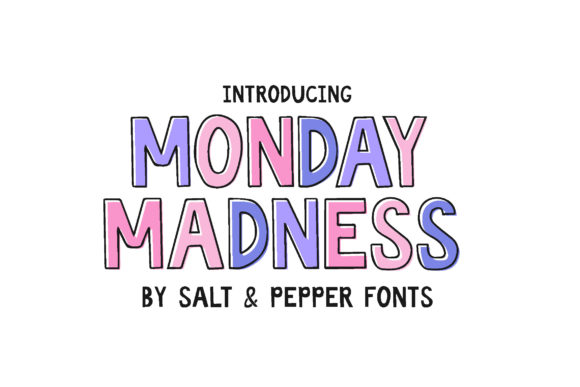
Monday Madness Font: The Perfect Choice for Kids’ Activities and School Projects
Are you looking for a font that embodies playfulness and authenticity for your kids’ activities or school projects? Look no further than the Monday Madness Font! This cute and colorful display font is sure to add a touch of fun and excitement to any project.
What is Monday Madness Font?
Monday Madness Font is a unique and creative font that is designed to bring a smile to your face. With its bold and colorful letters, this font is perfect for kids’ activities, school projects, and even personal use. Whether you’re creating a poster, flyer, or presentation, Monday Madness Font is sure to make your project stand out.
Characteristics of Monday Madness Font
So, what makes Monday Madness Font so special? Here are a few of its key characteristics:
- Cute and Colorful: Monday Madness Font features bold and colorful letters that are sure to grab attention.
- Playful: This font embodies playfulness and fun, making it perfect for kids’ activities and school projects.
- Authentic: With its unique and creative design, Monday Madness Font is sure to add a touch of authenticity to any project.
- Display Font: This font is designed to be used as a display font, making it perfect for headings, titles, and other prominent text.
Uses for Monday Madness Font
So, what can you use Monday Madness Font for? Here are a few ideas:
- Kids’ Activities: Use Monday Madness Font to create fun and engaging materials for kids, such as worksheets, posters, and activity sheets.
- School Projects: Add a touch of personality to school projects, such as presentations, reports, and essays.
- Personal Use: Use Monday Madness Font to create fun and colorful materials for personal use, such as party invitations, greeting cards, and social media graphics.
Benefits of Using Monday Madness Font
So, why should you use Monday Madness Font? Here are a few benefits:
- Adds Personality: Monday Madness Font adds a touch of personality and fun to any project.
- Grabs Attention: The bold and colorful letters of Monday Madness Font are sure to grab attention and engage your audience.
- Easy to Read: Despite its playful design, Monday Madness Font is easy to read and understand.
- Versatile: Monday Madness Font can be used for a wide range of projects, from kids’ activities to school projects and personal use.
Tips and Variations
Here are a few tips and variations for using Monday Madness Font:
- Experiment with Colors: Try out different colors and color combinations to add even more personality to your text.
- Mix and Match: Mix and match Monday Madness Font with other fonts to create a unique and interesting design.
- Use it for Headings: Use Monday Madness Font for headings and titles to add a touch of fun and personality to your text.
In conclusion, Monday Madness Font is a cute and colorful display font that embodies playfulness and authenticity. With its bold and colorful letters, this font is perfect for kids’ activities, school projects, and even personal use. Whether you’re creating a poster, flyer, or presentation, Monday Madness Font is sure to make your project stand out.
- Q: What is Monday Madness Font?
A: Monday Madness Font is a cute and colorful display font designed for kids’ activities, school projects, and personal use.
- Q: Is Monday Madness Font easy to read?
A: Yes, despite its playful design, Monday Madness Font is easy to read and understand.